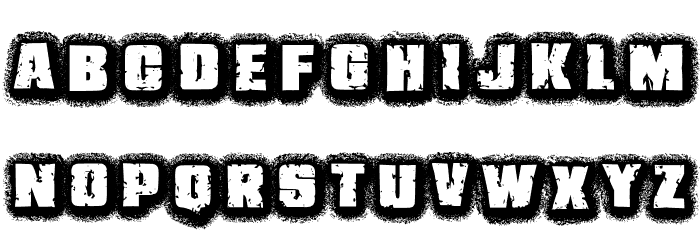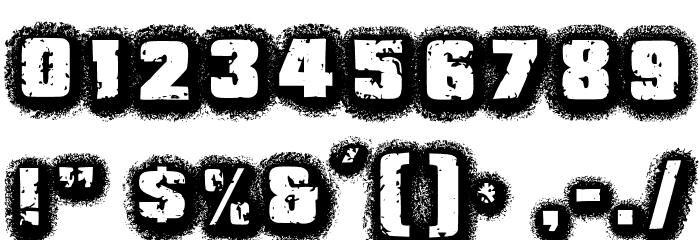
JMHBelicosa-Regular Font
This font features a bold, distressed style with a rugged, textured appearance. Each character is encased in a rough, uneven outline that gives it a grunge or urban feel. The letters are blocky and uppercase, with a strong presence that makes them stand out. The numbers and special characters follow the same design, maintaining consistency across the entire set. This font is ideal for projects that require a bold statement or an edgy, rebellious look.
- Proposed Projects: Perfect for posters, album covers, streetwear branding, or any design needing a bold, edgy statement.